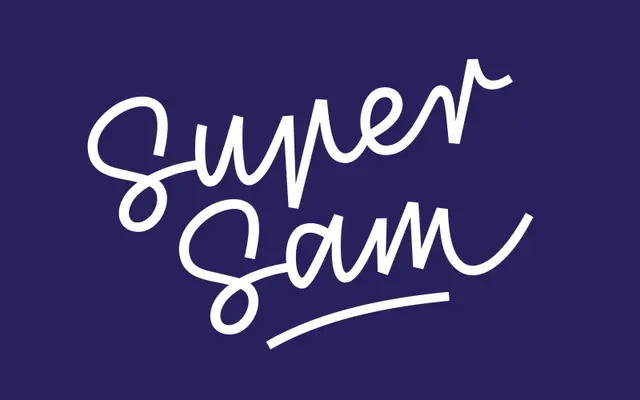
Rialto Script specimen from The Designers Foundry
A monolinear display script by Zuzanna Rogatty, drawn from Polish communist-era neon signs and built with extensive alternates and swashes for varied typesetting.
Designed by Warsaw-based Zuzanna Rogatty, the typeface takes its cues from the idiosyncratic neon signage of communist-era Poland. Glyphs sit slightly above the baseline on a slanted axis, and the family offers contextual alternates, standard and discretionary ligatures, initials, and capital and lowercase swashes including beginning, ending and dash variants. A set of block letters is accessible via the small caps feature, making it suited to titles, logos and sign-style work.
A monolinear swashed display script with a slanted axis, drawn from dynamic handwriting and inspired by Polish neon signage. Sits firmly in the display script category due to its heavy use of alternates, swashes and contextual substitution.